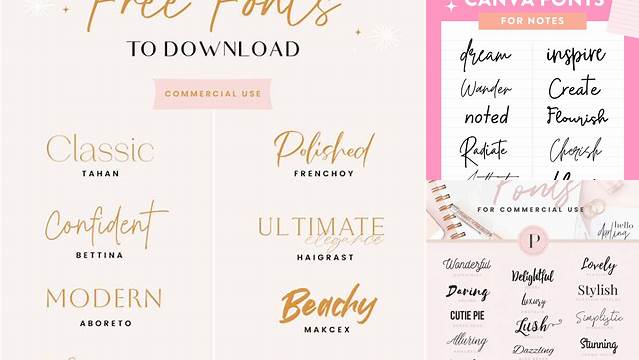
Download Free Fonts: Your Ultimate Guide
Hey guys! Ever found yourself needing the perfect font for a project but didn't want to break the bank? You're in the right place! This guide is all about how to download free fonts without getting lost in a maze of sketchy websites and questionable licenses. We'll cover everything from where to find them, what to watch out for, and how to use them like a pro. Let's dive in!
1. Understanding Font Licensing
Before you even think about downloading free fonts, it's crucial to understand font licensing. Think of it like this: fonts are software, and their creators have rights. Different licenses allow for different uses. Some fonts are free for personal use, meaning you can use them for your personal projects but not for commercial endeavors. Others are free for commercial use, allowing you to use them in projects that make money. Then there are open-source licenses, which are super flexible, often allowing you to modify and redistribute the font. It’s super important to read the license agreement that comes with the font. Don’t just blindly click "I agree"; actually read it! This will save you from potential legal headaches down the road. Imagine designing a logo for a client and then finding out you can’t legally use the font. Yikes! So, when you’re on the hunt to download free fonts, always check the license. Trust me, it's worth the extra few minutes.
Personal Use vs. Commercial Use
Okay, let's break down the difference between personal and commercial use a bit more. Personal use is pretty straightforward. If you're using a font for something like a birthday card, a school project, or a personal blog that doesn't generate income, you're probably in the clear. But commercial use is where things get a little trickier. If you’re using the font for a logo, a website for your business, merchandise you sell, or any other project that generates revenue, you need a font that’s licensed for commercial use. Some fonts offer a dual license, meaning they're free for personal use but require a paid license for commercial projects. Others are completely free for both. Again, reading the license is key! Don't assume a font is free for commercial use just because you found it on a free font website. Always verify. This is perhaps one of the most critical steps when you download free fonts and intend to use them professionally. Failing to do so can result in copyright infringement, which can lead to legal and financial troubles. So, make it a habit to check, double-check, and even triple-check the license.
Open Source Licenses
Open source licenses are the rockstars of the font world when it comes to flexibility. They generally allow you to use the font for just about anything – personal projects, commercial projects, modifying the font, and even redistributing it. This doesn't mean you can do absolutely anything you want, though. Some open source licenses still require you to give attribution to the original designer. This means you need to credit them somewhere, like in the credits of your website or in the description of your project. Common open source licenses you might encounter include the SIL Open Font License (OFL) and various Creative Commons licenses. The SIL OFL is specifically designed for fonts and is widely used in the open source font community. Creative Commons licenses are broader and cover various types of creative works, including fonts. When you download free fonts under an open source license, you're essentially getting a huge amount of freedom. It’s like getting the keys to the font kingdom! But with great power comes great responsibility, so make sure you understand the specific terms of the license you’re dealing with. Always give credit where credit is due, and you’ll be golden.
2. Best Websites to Download Free Fonts
Alright, now that we've covered the legal stuff, let's get to the fun part: where to find these amazing free fonts! There are tons of websites out there offering free fonts, but not all of them are created equal. Some have a better selection, some have clearer licensing information, and some are just plain easier to use. I'm going to walk you through some of my favorite places to download free fonts, highlighting what makes each one special. Think of these websites as your font treasure maps, leading you to the perfect typography for your projects. From the well-known giants to the hidden gems, we’ll explore them all. We'll talk about user interfaces, search functionalities, and the overall quality of the fonts available. So buckle up, font lovers, because we’re about to go on a font-astic adventure!
If there’s a Mount Rushmore of free font websites, Google Fonts would definitely have a spot. It’s a massive library of open-source fonts that are completely free for both personal and commercial use. The best part? Google Fonts are super easy to embed in websites, making them a go-to for web designers. The interface is clean and intuitive, allowing you to filter fonts by categories, font weight, style, and even language. You can also preview how the font looks with your own text, which is incredibly helpful. Plus, the fonts are hosted on Google's servers, so they load quickly and reliably on websites. When you download free fonts from Google Fonts, you're getting high-quality typefaces that are designed to work seamlessly on the web. It's a win-win! This platform has become a staple for designers and developers alike, and for good reason. The breadth of options, combined with the ease of use, makes it a top choice for anyone looking to enhance their projects with beautiful typography. And the fact that everything is free for commercial use? That's just the cherry on top.
Font Squirrel is another fantastic resource for downloading free fonts, especially if you're looking for fonts with commercial licenses. They pride themselves on curating fonts that are 100% free for commercial use, so you can use them in your projects without worrying about licensing issues. The website has a user-friendly interface and a robust search function that allows you to filter fonts by various criteria, including license type, classifications, and tags. They also have a handy “Font Identifier” tool where you can upload an image of a font and they'll try to identify it for you. How cool is that? This can be a real lifesaver when you stumble upon a font you love but have no idea what it is. Font Squirrel is a great place to discover unique and high-quality fonts that you won't find everywhere else. It's a treasure trove for designers who are looking to add a touch of originality to their work. And the peace of mind that comes with knowing you're using fonts that are legally cleared for commercial use? Priceless!
DaFont is a classic in the world of free fonts. It’s been around for ages and has a massive collection of fonts, ranging from elegant scripts to quirky display faces. One of the things that makes DaFont so popular is its extensive categorization system. You can browse fonts by themes like horror, cartoon, gothic, and more, making it easy to find something that fits your project's vibe. However, it's crucial to pay attention to the licensing information on DaFont. While many fonts are free for personal use, not all of them are free for commercial use. Each font listing has a note about the license, so make sure you read it carefully before you download free fonts. Despite the licensing caveat, DaFont is a fantastic resource for finding unique and creative fonts. It's a place where you can discover hidden gems and add some personality to your designs. Just remember to always double-check the license before using a font in a commercial project. This little bit of diligence can save you a lot of headaches in the long run.
3. Identifying Font Styles and Classifications
Okay, let's talk font styles! Knowing the different categories of fonts is super helpful when you're trying to find the perfect one for your project. Think of it like knowing the ingredients in a recipe. You wouldn't bake a cake with just any old flour, right? Same goes for fonts! Different font styles evoke different moods and are suitable for different purposes. Understanding these styles will make your font search much more efficient. When you download free fonts, you want to make sure you're choosing ones that align with your project's goals and aesthetics. This isn't just about picking something that looks nice; it's about making informed choices that enhance your design and communicate your message effectively. So, let's dive into the world of font classifications and become font aficionados!
Serif fonts are the classic, traditional typefaces that have little strokes or “feet” at the ends of the letters. Think Times New Roman or Georgia. These fonts are often associated with formality, authority, and readability, making them a great choice for body text in books, newspapers, and magazines. The serifs help guide the eye across the page, making long passages of text easier to read. However, serifs can sometimes appear cluttered on screens, especially at smaller sizes. So, while serif fonts are fantastic for print, you might want to choose a simpler serif or a sans-serif for web design. When you download free fonts in the serif category, you're essentially adding a touch of elegance and tradition to your design arsenal. They're the reliable workhorses of the font world, always ready to deliver a sense of sophistication and readability. Whether you're designing a book cover, a business card, or a website, having a good selection of serif fonts is essential.